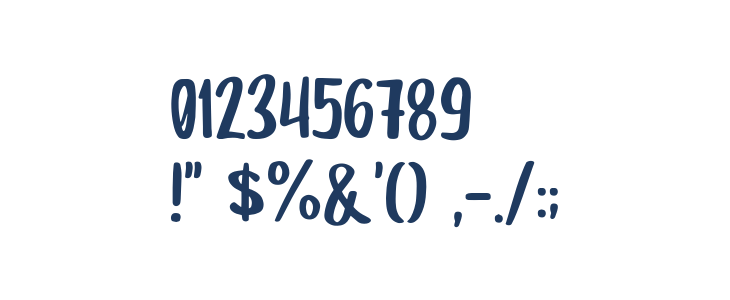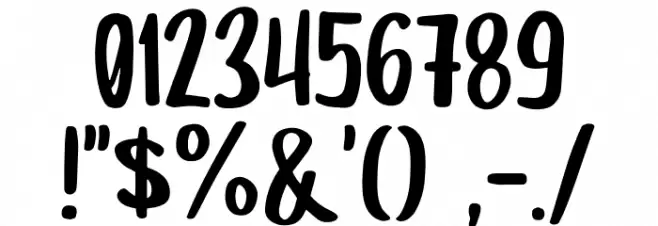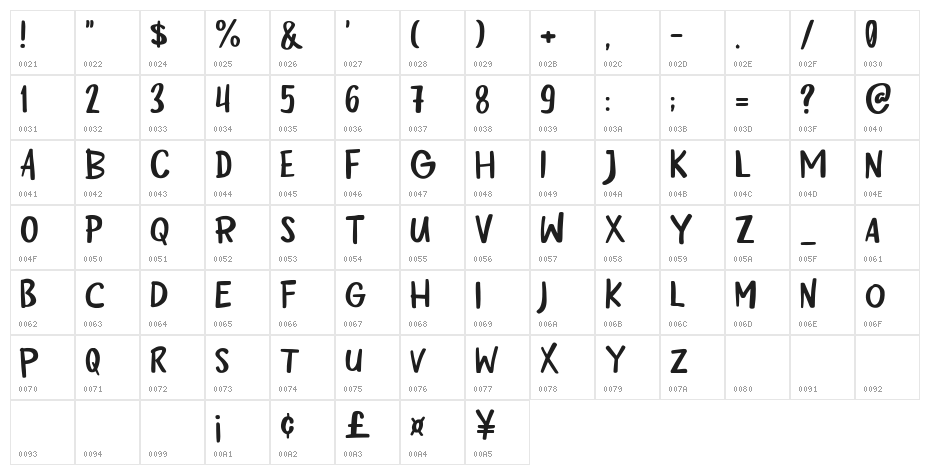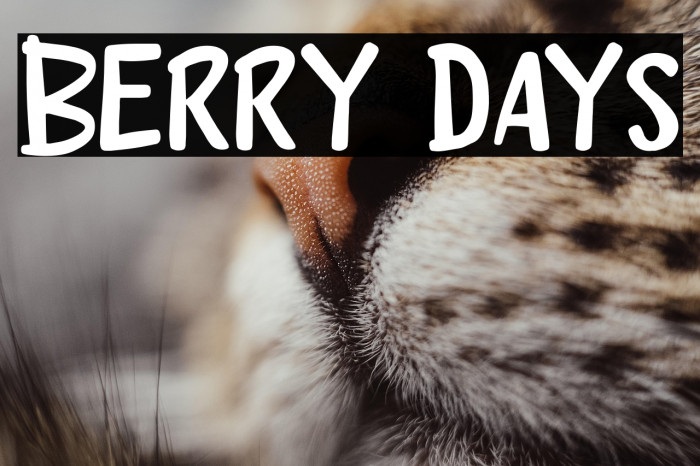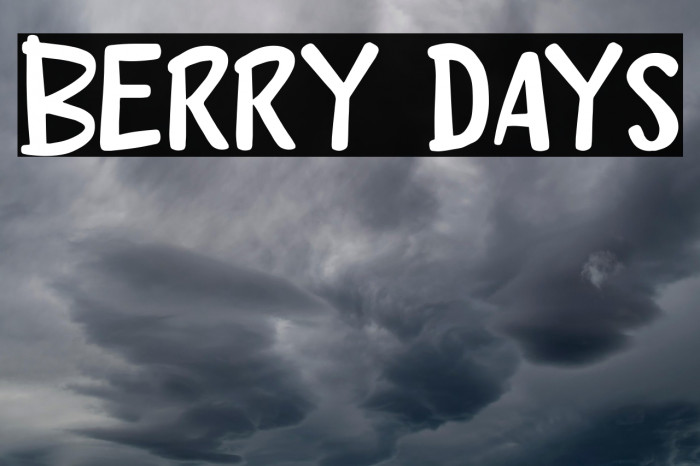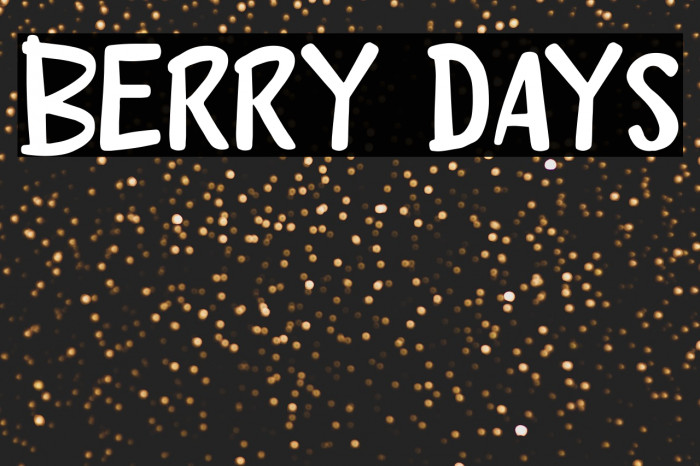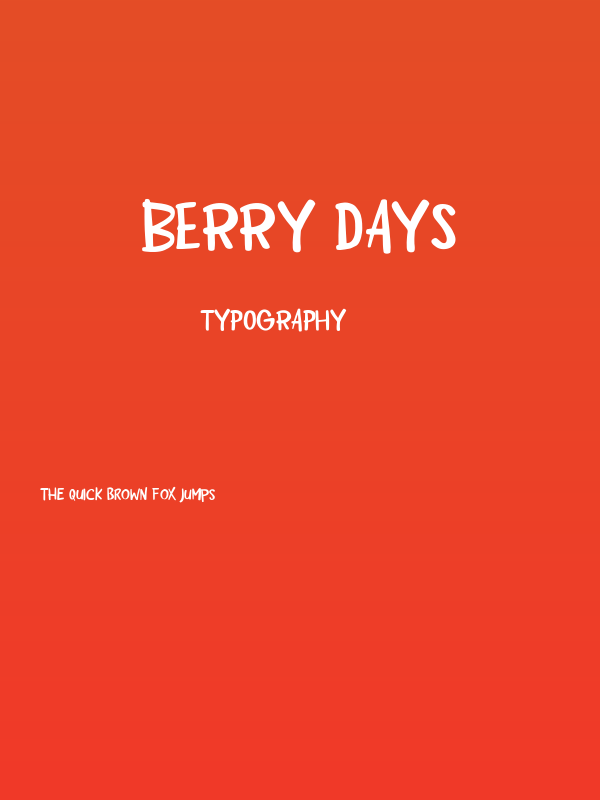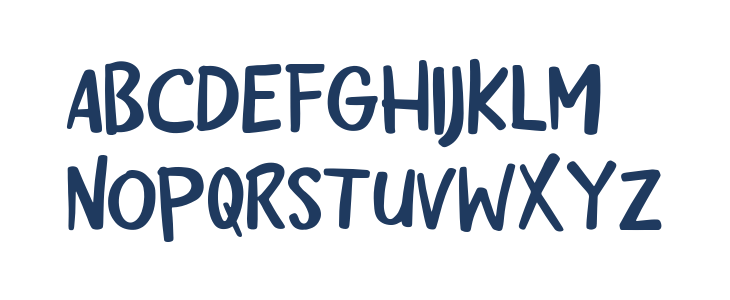
Berry Days Font
Berry Days Description
This playful and bold font features a handwritten style with a casual, friendly appearance. The characters are slightly irregular, giving them a unique and approachable feel. The strokes are thick and consistent, providing a strong visual impact. The font maintains a uniform weight throughout, with rounded edges that soften its overall look. It is well-suited for projects that require a personal touch or a sense of whimsy. The spacing between characters is moderate, ensuring readability while maintaining its distinctive style.
| Proposed Projects | Ideal for children's books, greeting cards, playful branding, and social media graphics. |